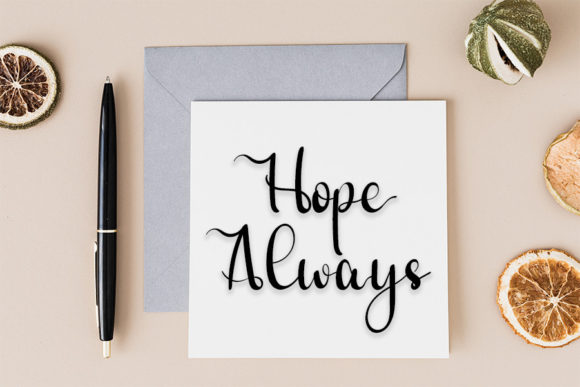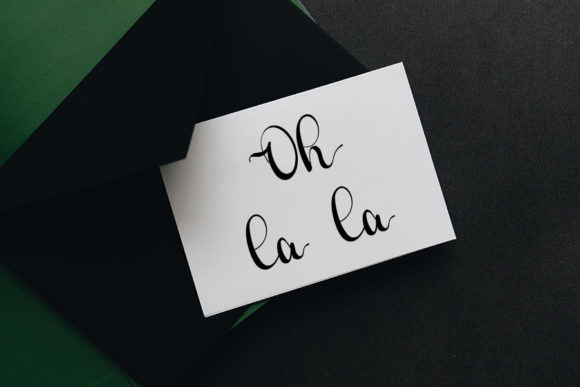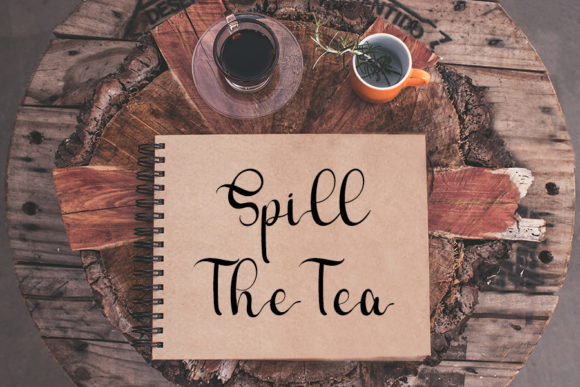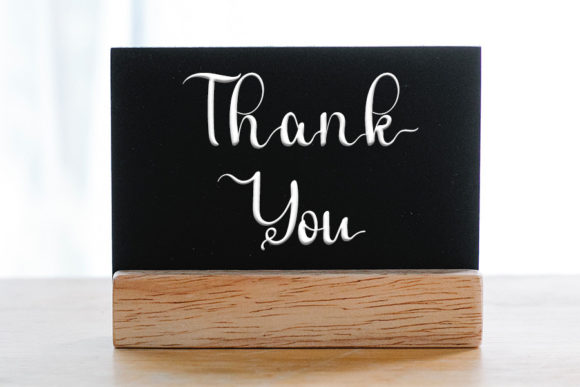
Eyelash Font: Elevate Your Designs with a Touch of Timeless Elegance
In the world of typography, few fonts manage to capture the essence of both modern style and classic sophistication. Eyelash, a stylish handwritten font, is one such gem that brings a contemporary atmosphere and impeccable form to the table. Inspired by timeless classic calligraphy, Eyelash strikes a perfect balance between modern flair and traditional charm, making it an ideal choice for designers and crafters looking to add a touch of elegance to their projects.
The Inspiration Behind Eyelash
Eyelash draws its inspiration from the classic calligraphy that has been a cornerstone of beautiful design for centuries. The font’s creator aimed to capture the fluidity, elegance, and precision that define the best calligraphic works. The result is a font that not only pays homage to its predecessors but also introduces a fresh, modern twist that sets it apart from more traditional typefaces.
Key Features of Eyelash Font
- Contemporary Atmosphere: Despite its roots in classic calligraphy, Eyelash boasts a design that feels thoroughly modern. Its lines are clean, its letterforms are balanced, and its overall aesthetic is sleek and sophisticated.
- Impeccable Form: One of the standout features of Eyelash is its attention to detail. Every letter, every curve, and every line has been carefully crafted to ensure that the font is not only beautiful but also highly legible.
- Balanced and Varied: Eyelash offers a range of variations that make it versatile enough for a wide array of projects. Whether you’re working on a logo, a website, or a print project, Eyelash provides the flexibility you need to create something truly unique.
Why Choose Eyelash for Your Projects?
For designers and crafters, the right font can make all the difference between a good project and a great one. Here are a few reasons why Eyelash should be at the top of your font considerations:
- Enhances Beauty: Eyelash was designed to enhance the beauty of your projects. Its elegant lines and classic feel can elevate even the simplest designs into something truly special.
- Versatility: From branding and advertising to web design and crafting, Eyelash’s versatility means it can be used across a wide range of applications.
- Easy to Read: Despite its stylish and elegant design, Eyelash remains highly legible, making it perfect for both headings and body text.
How to Use Eyelash in Your Designs
Incorporating Eyelash into your projects is straightforward. Here are a few tips to get you started:
- Pair it with Neutrals: Eyelash’s strong personality can be balanced with neutral fonts for body text, creating a harmonious and readable design.
- Experiment with Sizes: Play with different sizes to emphasize certain parts of your text. Eyelash’s design ensures it looks great whether it’s used for headings or smaller text.
- Consider Color: While Eyelash can shine in any color, it’s worth considering how its elegance can be enhanced with the right hue. Deep blacks or rich jewel tones can add an extra layer of sophistication.
Eyelash is more than just a font; it’s a design tool that can transform your projects with its timeless elegance and modern flair. Whether you’re a professional designer or a crafter looking to add a personal touch to your work, Eyelash offers the perfect blend of style, versatility, and readability. By choosing Eyelash, you’re not just selecting a font; you’re elevating your designs to new heights of beauty and sophistication.